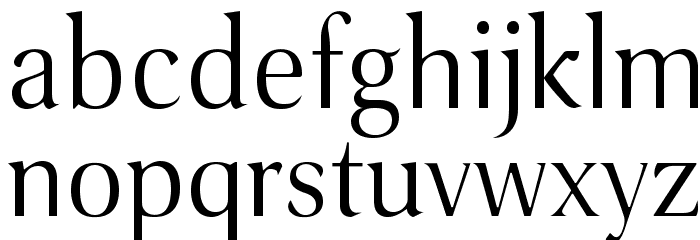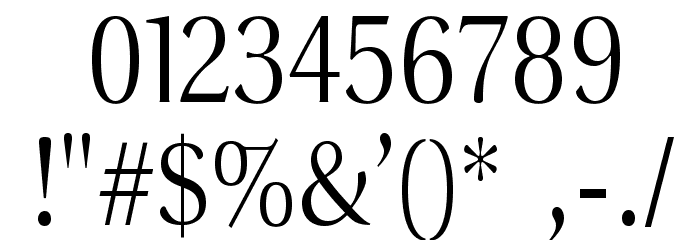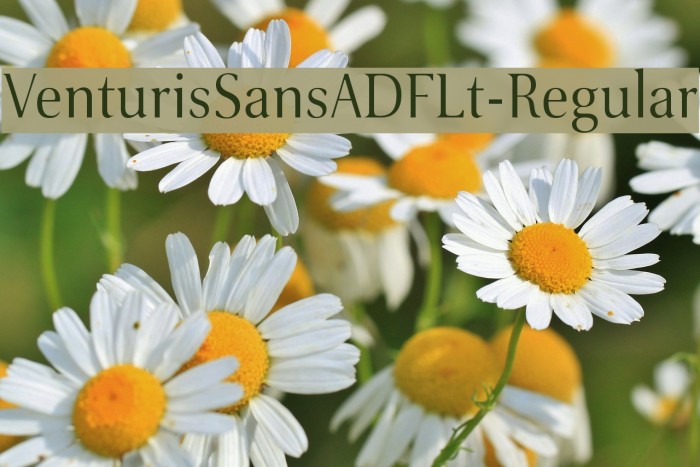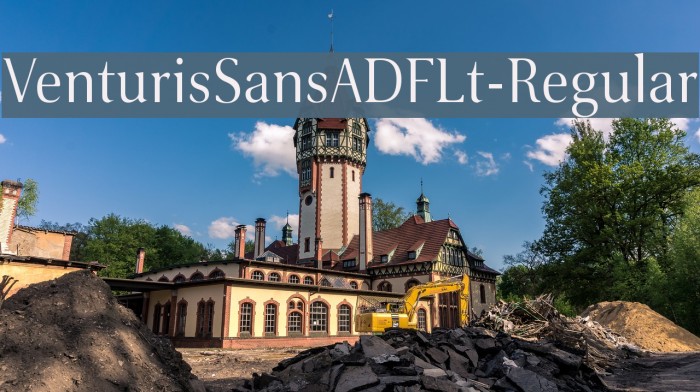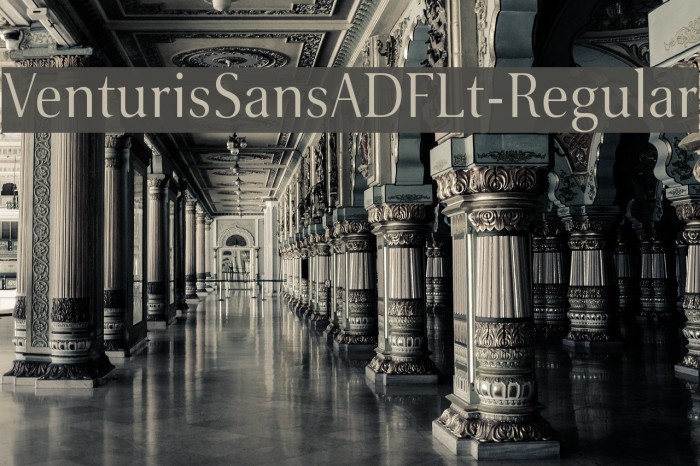
VenturisSansADFLt-Regular Font
This font exhibits a refined and elegant serif style, characterized by its clean lines and balanced proportions. The uppercase letters are tall and stately, with a slight contrast in stroke thickness that adds a touch of sophistication. The lowercase letters maintain a harmonious flow, with rounded curves and a gentle slant that enhance readability. Numerals are clear and distinct, making them suitable for both text and display purposes. Special characters are thoughtfully designed, ensuring consistency across the typeface. Overall, this font combines classic serif elements with a modern twist, making it versatile for various design applications.
A refined serif font with elegant lines and balanced proportions.
- Proposed Projects: Ideal for editorial design, branding, book covers, and formal invitations.
- Category: Serif
- Overall Style: Classic
- Use Case: Headlines, Body text, Logos